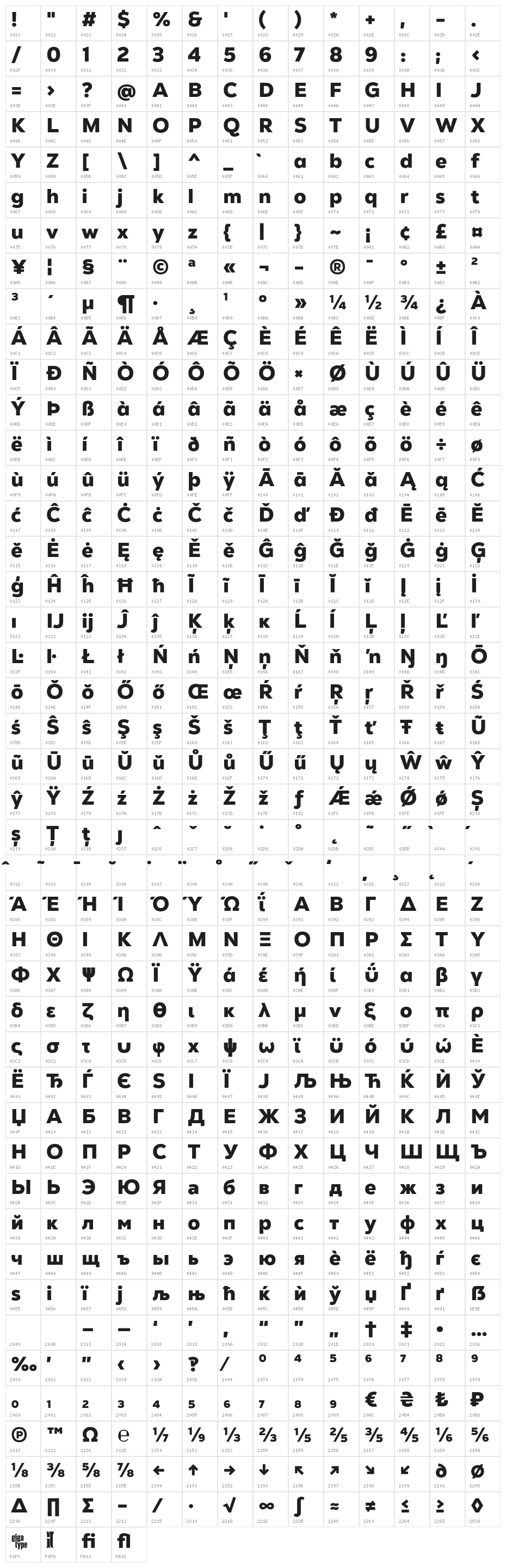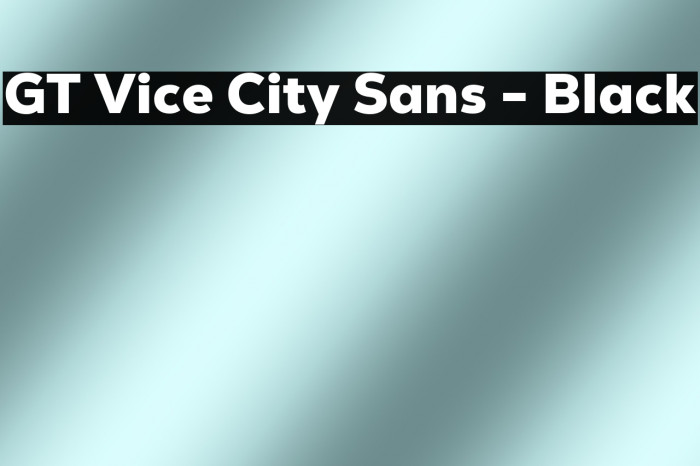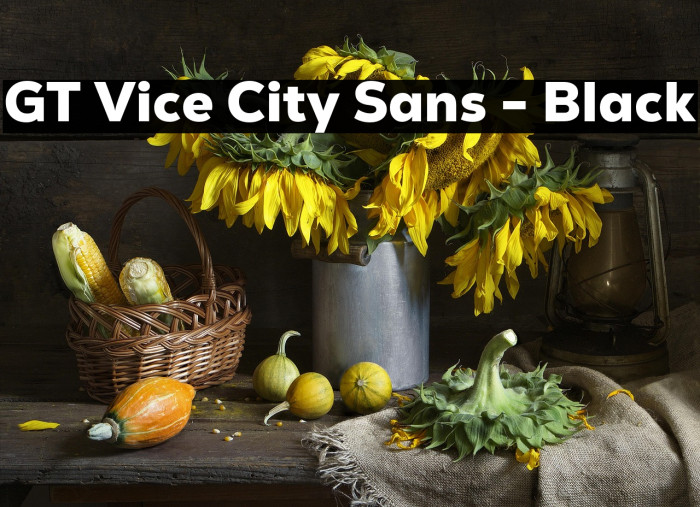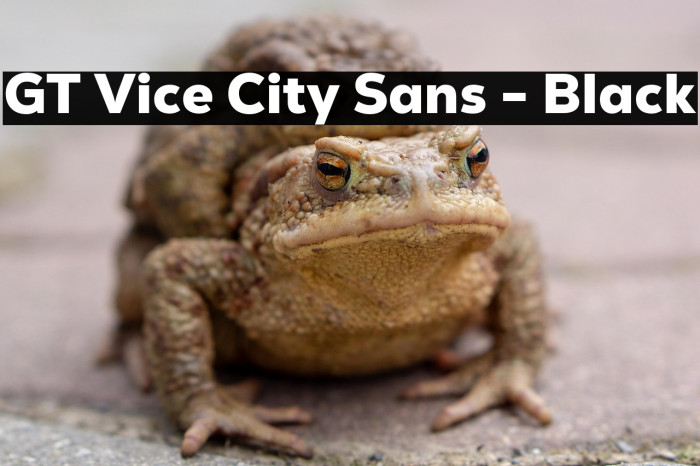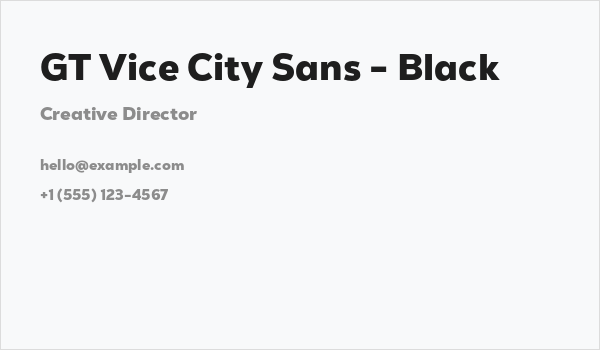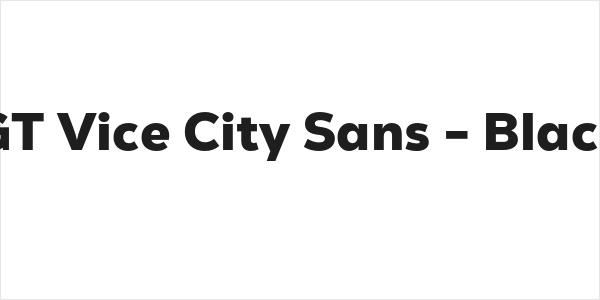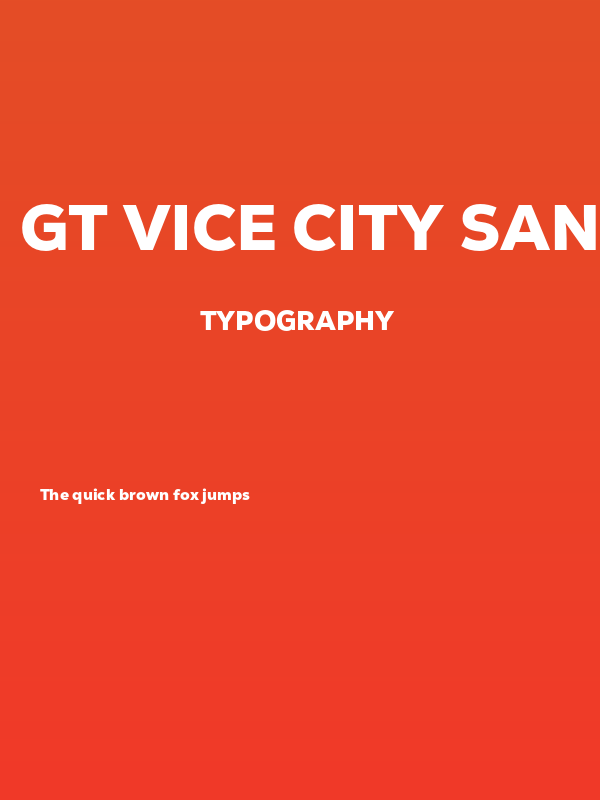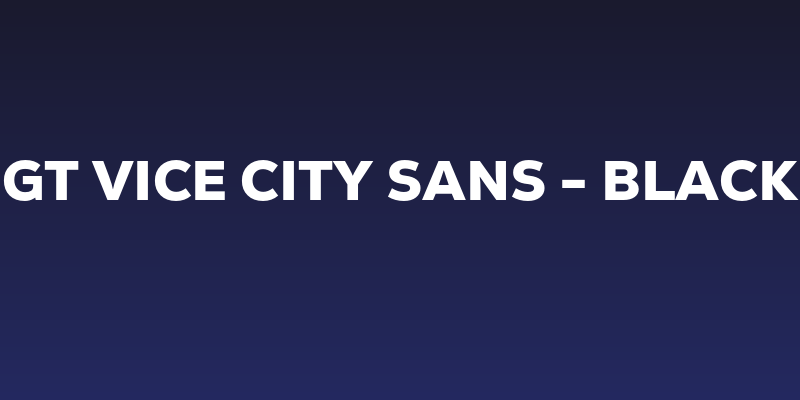
GT Vice City Sans - Black Font
GT Vice City Sans - Black Description
A bold, modern sans-serif font with strong geometric shapes and clean lines, suitable for impactful headlines and branding.
| Proposed Projects | Branding, headlines, posters, advertising. |